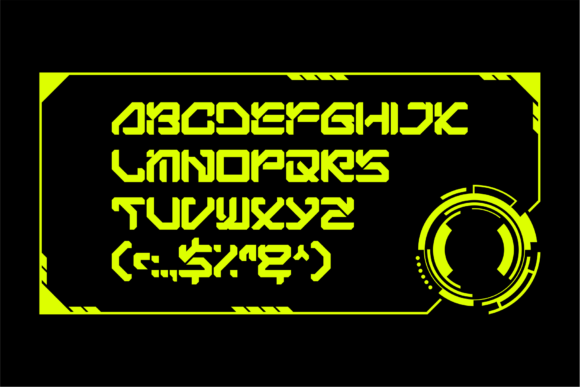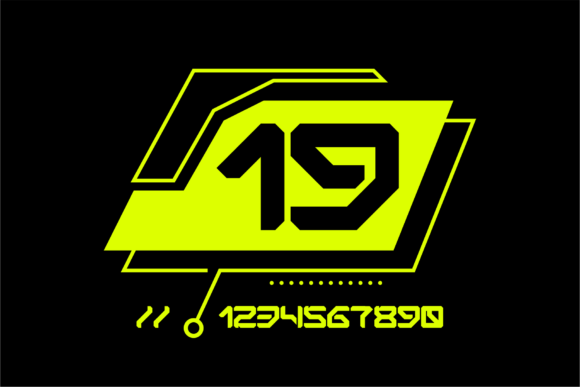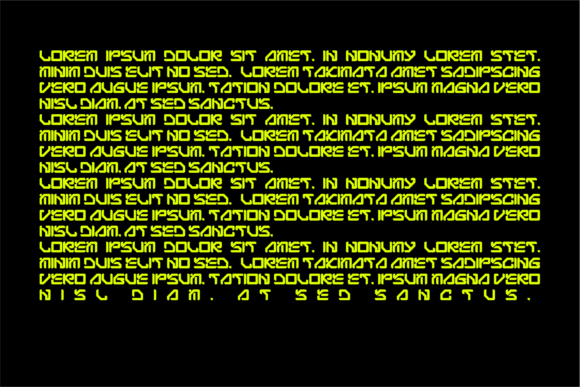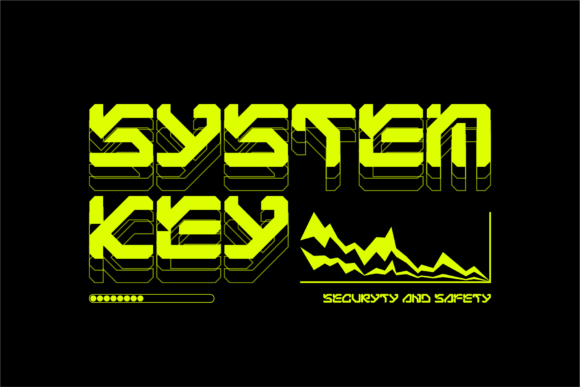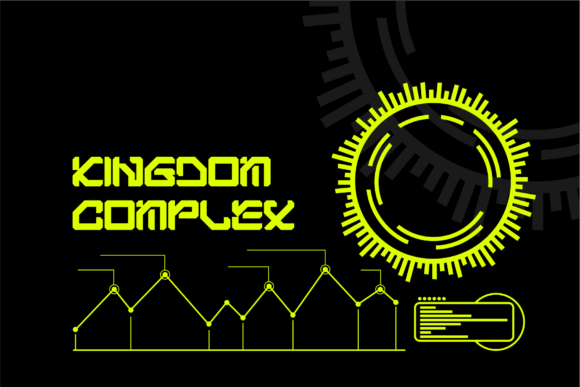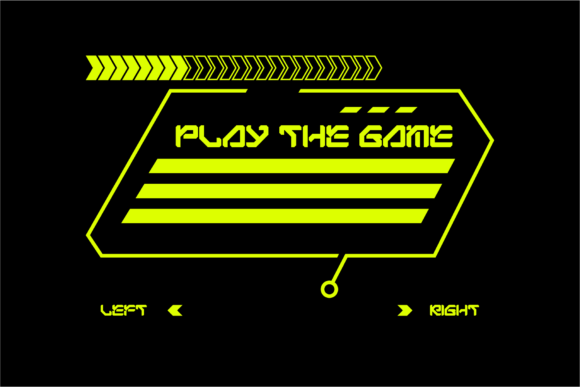
Introducing Bigs Robotic Font: The Ultimate Futuristic Display Font
Are you looking for a font that screams modernity and futurism? Look no further than Bigs Robotic Font! This amazing display font is designed to give your designs a robotic and cutting-edge look that’s sure to turn heads. With its unique blend of geometric shapes, straight lines, and zigzags, Bigs Robotic Font is the perfect choice for designers and crafters who want to add a touch of innovation to their work.
What Makes Bigs Robotic Font So Special?
Bigs Robotic Font is a one-of-a-kind display font that boasts a futuristic and robotic-styled design. Its geometric shapes, straight lines, and zigzags come together to create a modern and cool appearance that’s perfect for a wide range of design projects. Whether you’re working on a logo, a poster, or a website, Bigs Robotic Font is sure to make your design stand out from the crowd.
Key Features of Bigs Robotic Font
- Geometric Shapes: Bigs Robotic Font features a range of geometric shapes, including triangles, squares, and circles, which give it a unique and futuristic look.
- Straight Lines: The font’s straight lines and sharp edges add to its robotic and modern appearance.
- Zigzags: The zigzag patterns in Bigs Robotic Font add a touch of dynamism and energy to your designs.
- Display Font: Bigs Robotic Font is designed specifically as a display font, making it perfect for headlines, titles, and other large-format text.
Who Can Benefit from Bigs Robotic Font?
Bigs Robotic Font is perfect for a wide range of designers and crafters, including:
- Graphic Designers: If you’re working on a logo, brochure, or other marketing materials, Bigs Robotic Font is a great choice.
- Web Designers: Add a touch of futurism to your website with Bigs Robotic Font, perfect for headings and titles.
- Crafters: If you’re creating handmade cards, scrapbook pages, or other craft projects, Bigs Robotic Font is a great way to add a modern touch.
- Advertising Agencies: Use Bigs Robotic Font to create eye-catching ad campaigns that demand attention.
Tips and Tricks for Working with Bigs Robotic Font
- Experiment with Sizes: Bigs Robotic Font looks great in large sizes, but don’t be afraid to experiment with smaller sizes to add visual interest to your designs.
- Combine with Other Fonts: Pair Bigs Robotic Font with other fonts to create a unique and eye-catching design.
- Play with Colors: Bigs Robotic Font looks great in bold, bright colors, but don’t be afraid to experiment with different color schemes to find the perfect fit for your design.
Bigs Robotic Font is a game-changing display font that’s perfect for designers and crafters who want to add a touch of futurism to their work. With its unique blend of geometric shapes, straight lines, and zigzags, this font is sure to make your designs stand out from the crowd. So why wait? Download Bigs Robotic Font today and start creating amazing designs that demand attention!